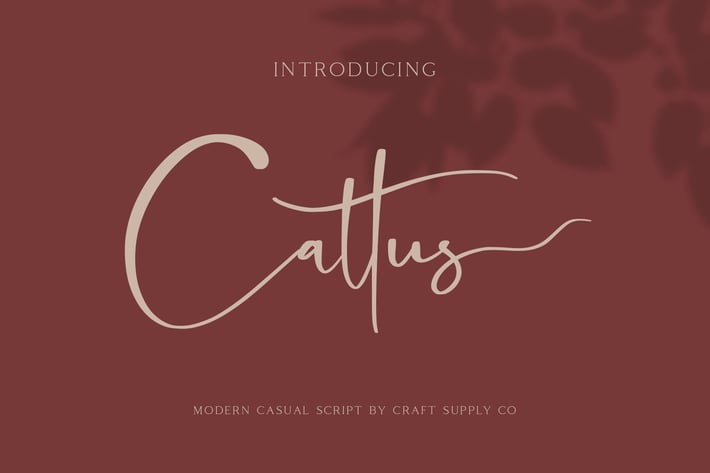
Cattus - Modern Casual Script Font
Introducing New Font : Cattus - Modern Casual Script Font
Cattus - Modern Casual Script Font is an handwritten script font based on the expression of real handwriting. Cattus - Modern Casual Script will work perfectly for fashion, e-commerce brands, trend blogs, wedding boutiques or any business that wants to appear upscale and chic.
Cattus - Modern Casual Script Font also Suitable for Logo, greeting cards, quotes, posters, branding, name card, stationary, design title, blog header, art quote, typography, art, modern envelope lettering or book design, happening style like handdrawn design or watercolor design theme, craft design, any DIY project, book title, or any purpose to make your art/design project look pretty and trendy.
1. Uppercase & Lowercase
2. Stylistic Alternates
3. Standard & Special Ligatures (a e g i j o s r u y ee gg oo ss tt ar er ir or rr ur)
4. Numerals & Punctuations (OpenType Standard)
5. Accents/Multilingual characters (AÀÁÂÃÄÅCÇDÐEÈÉÊËIÌÍÎÏNÑOØÒÓÔÕÖUÙÜÚÛWYÝŸỲŸÆŒßÞ)